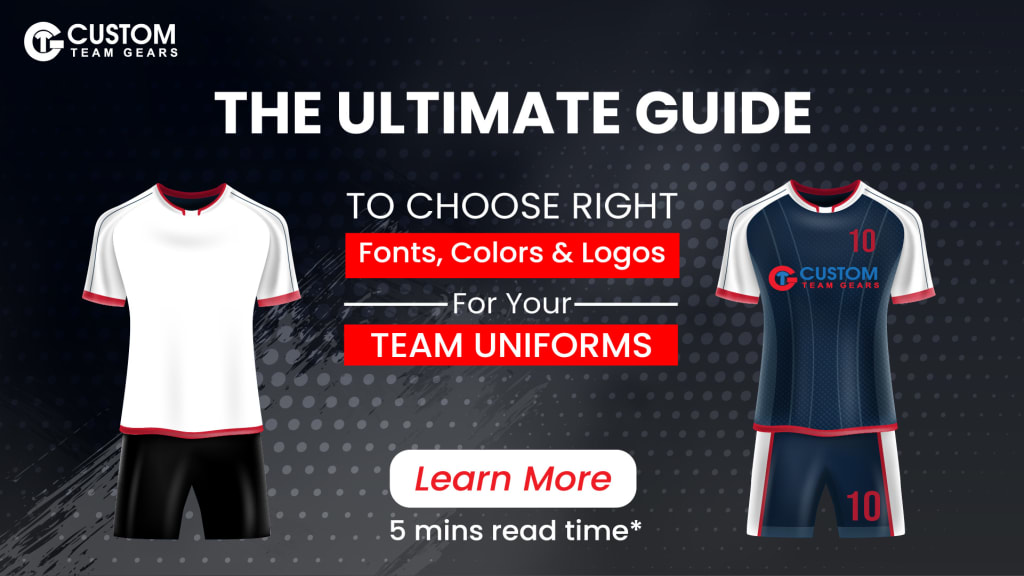
The Ultimate Guide to Choosing Fonts, Colors & Logos for Your Team Uniforms
Your team’s uniform is more than just clothing—it’s a symbol of unity, pride, and identity. Whether you’re outfitting a youth soccer team, a corporate softball league, or a high school basketball squad, every design choice matters. The right combination of fonts, colors, and logos can make your team look professional, intimidating, and cohesive.
1. Choosing the Right Colors for Your Team Uniforms
Color selection forms the foundation of your team's visual identity. The psychology behind colors can actually influence performance and perception:
The Science of Color in Sports
• Red: Increases adrenaline and is perceived as aggressive (used by 22% of professional teams)
• Blue: Promotes calmness and focus (the most popular color in professional sports)
• Black: Conveys power and intimidation
• Yellow/Orange: Enhances visibility in outdoor conditions
Practical Color Considerations
• Fabric Limitations: Sublimation printing allows for unlimited colors while screen printing works best with solid tones
• Opponent Contrast: Always check league rules about color clashes
• Seasonal Factors: Darker colors absorb more heat in summer months
• Maintenance: Some colors show dirt and stains more easily than others
📌 Case Study: When the Seattle Seahawks introduced their "Action Green" alternate jerseys, they saw a 12% increase in merchandise sales, proving the power of bold color choices.
2. Picking the Perfect Font for Names & Numbers
Typography is crucial for legibility and style. The right font can make your team look sleek, aggressive, or classic.
Best Font Styles for Sports Uniforms
Block Fonts (Bold & Traditional) – Ideal for football, hockey, and rugby.
Sleek Sans-Serif (Modern & Clean) – Great for basketball, soccer, and baseball.
Script Fonts (Elegant & Stylish) – Best for volleyball, golf, or corporate leagues.
Font Readability Tips
Avoid overly decorative fonts – Hard to read from a distance.
Ensure high contrast – Dark numbers on light jerseys (or vice versa).
Test different sizes – Names and numbers should be visible from the stands.
3. Designing a Memorable Team Logo
Your logo is the most recognizable element of your team identity:
Logo Placement Strategies
Position Pros Cons
Left Chest Classic look, highly visible Limited space
Full Chest Maximum impact More expensive
Sleeve Secondary branding Less visible in action
Back Neck Subtle professional touch Small canvas
Logo Technical Specifications
• Vector Format Required for quality scaling
• Minimum 300 DPI resolution
• Pantone Colors for brand consistency
• Clear Space around logo (at least equal to logo height)
📌 Success Story: A local high school saw 3x more college scouts notice their players after redesigning their logo to be more modern and visible on film.
Final Uniform Design Checklist
Before placing your order, ask:
✔ Do the colors match our team’s branding?
✔ Are the fonts easy to read from a distance?
✔ Does the logo look sharp in all sizes?
✔ Is the design consistent across jerseys, shorts, and accessories?